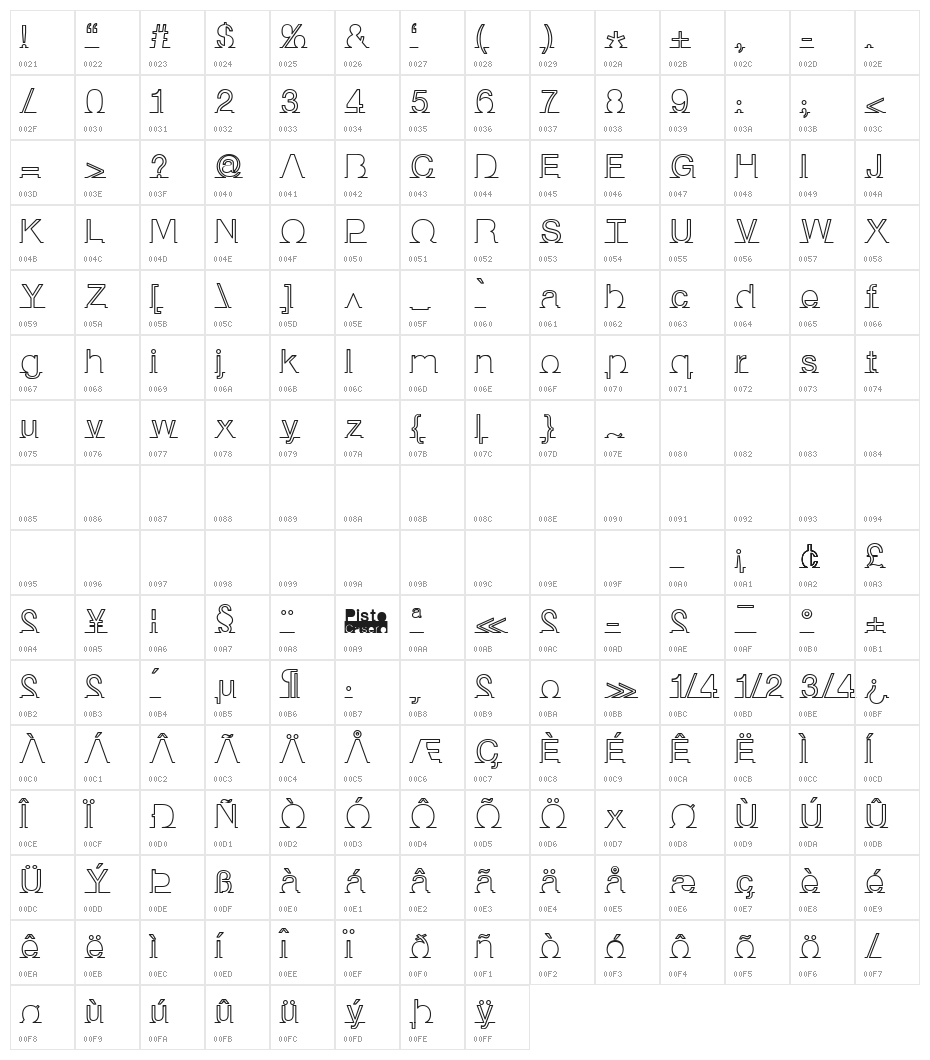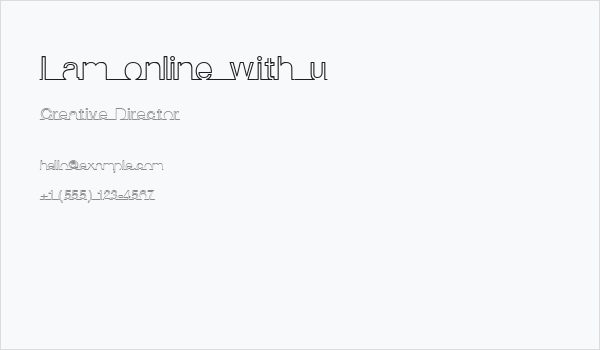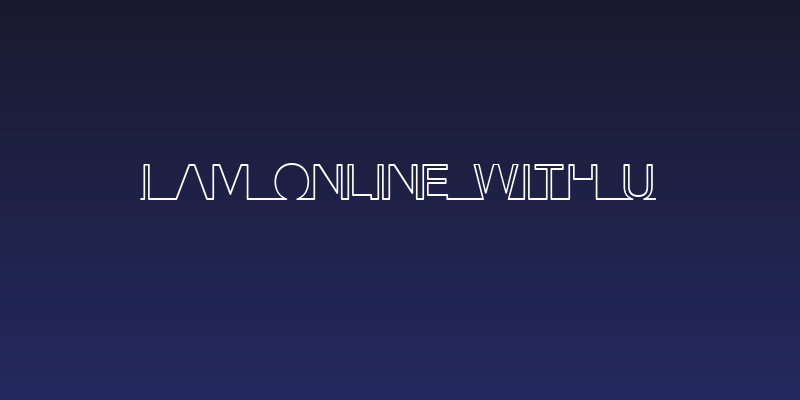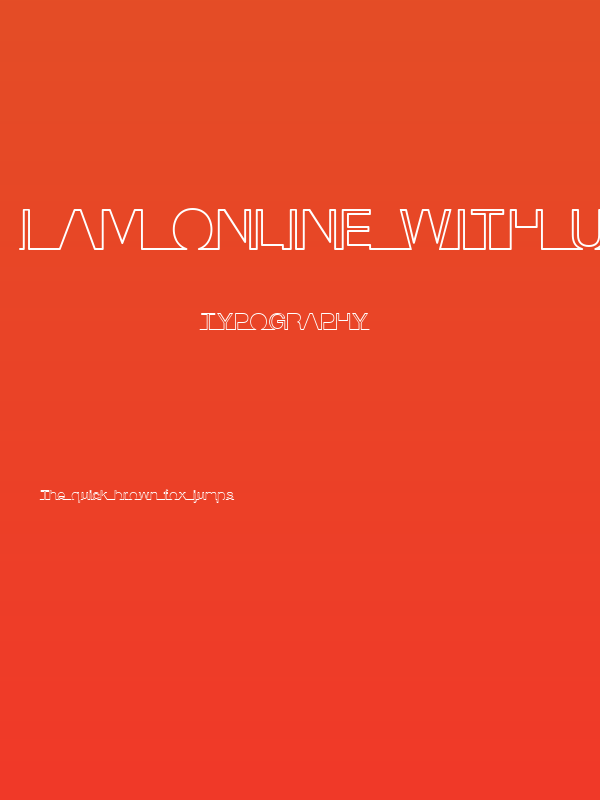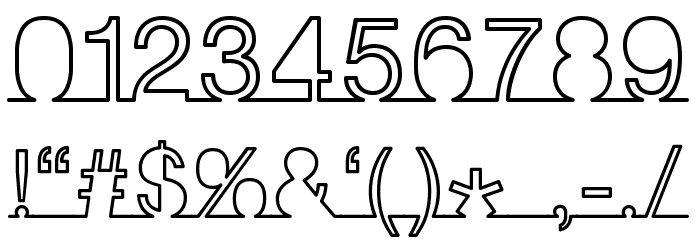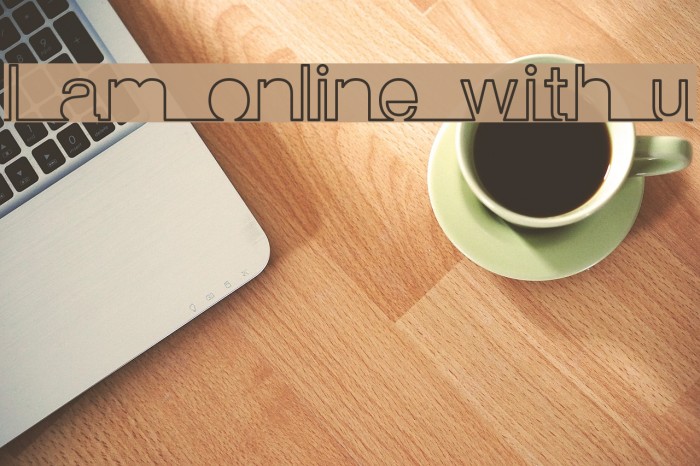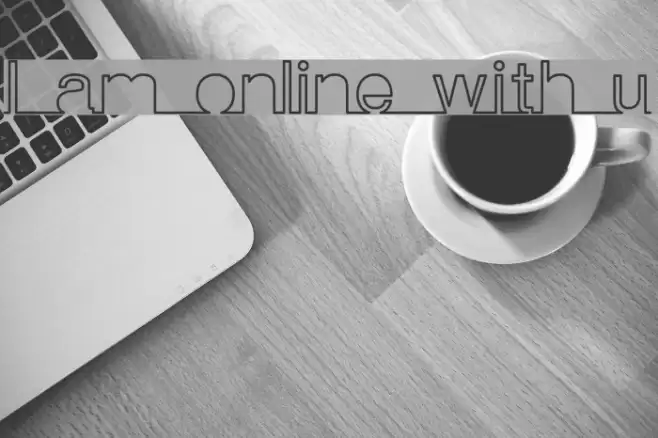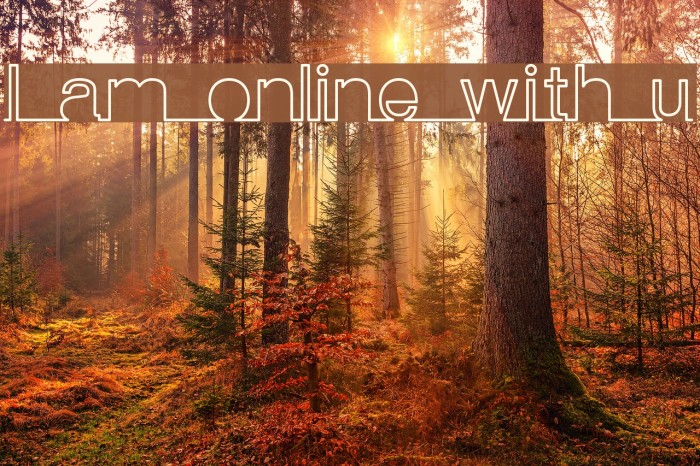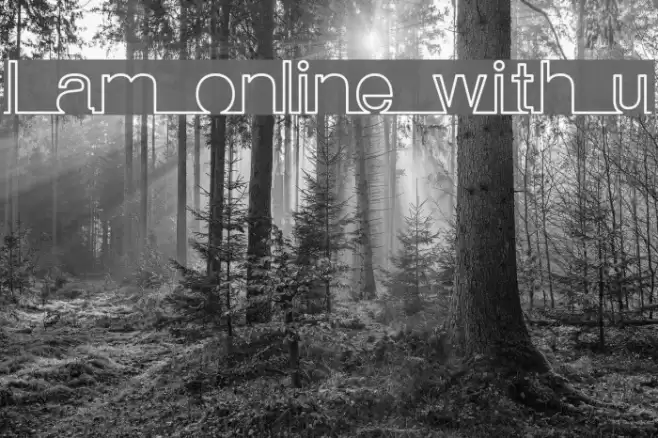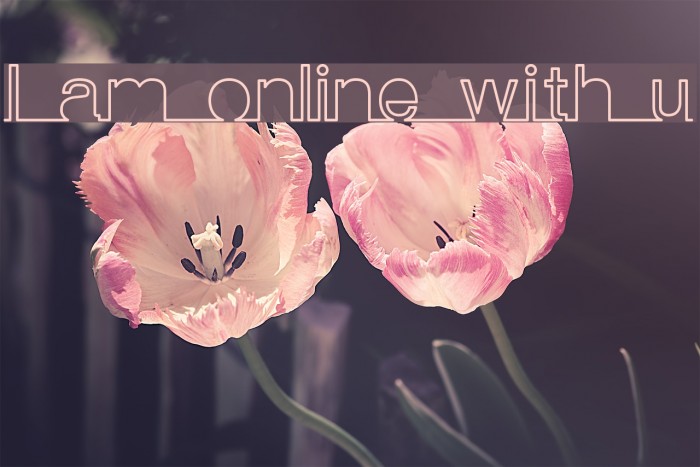
I am online with u Font
I am online with u Description
This font features a unique, modern outline style with a geometric influence. The characters are constructed with clean lines and open spaces, giving them a light and airy appearance. The uppercase letters have a distinct architectural feel, while the lowercase letters maintain a consistent flow with rounded edges. Numbers and special characters follow the same design principles, ensuring uniformity across the font. The overall design is both futuristic and minimalistic, making it suitable for contemporary projects.
| Use Case | Logos, Headlines, Posters |
| Proposed Projects | Ideal for branding, posters, digital media, and any project seeking a modern, sleek aesthetic. |